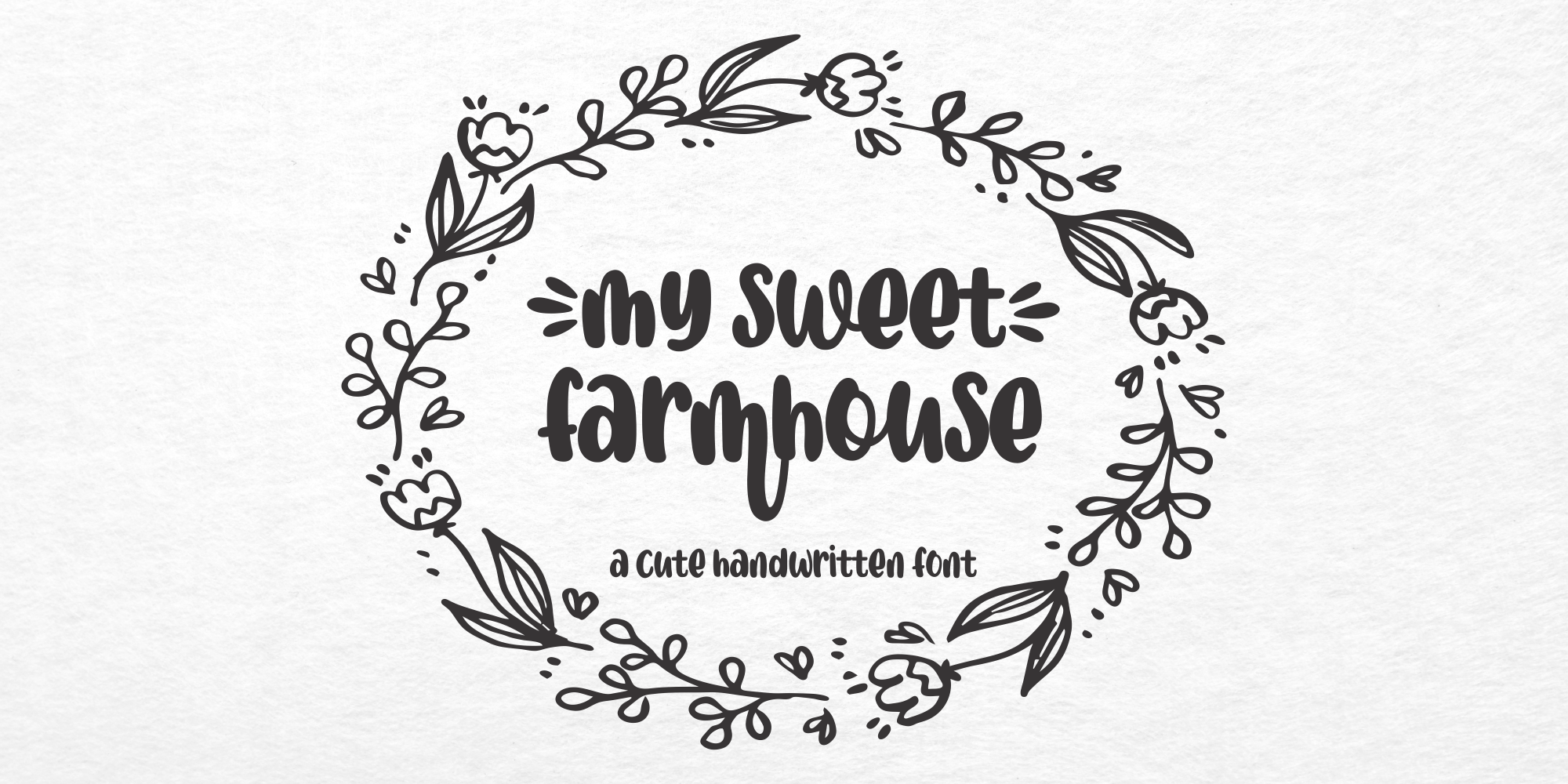
The My Sweet Farmhouse Font is perfect for rustic wedding invitations, farm-to-table restaurant branding, country kitchen decor, homemade product labels, rural bed and breakfast signage, farmhouse market materials, handcrafted goods packaging, agricultural business logos, and countryside tourism marketing.
What makes the My Sweet Farmhouse Font so exciting is its charming rustic authenticity that instantly evokes the warm comfort and wholesome values of traditional farmhouse living. This delightful typeface embodies the cozy simplicity and homemade quality that defines country lifestyle, creating an immediate sense of warmth and genuine hospitality. The font's farmhouse character communicates the authentic craftsmanship and down-to-earth values that rural businesses need to connect with customers seeking genuine country experiences and the comforting appeal of traditional farmhouse culture and homemade quality.
The My Sweet Farmhouse Font family includes Regular weight with complete uppercase and lowercase alphabets, comprehensive numerical sets, essential punctuation marks, and rustic decorative elements that maintain the farmhouse aesthetic throughout your country and rural lifestyle design projects.
Rural businesses and country-style service providers consistently choose My Sweet Farmhouse Font Free Download for projects that require authentic farmhouse appeal and wholesome country communication. This exceptional typeface excels in environments where establishing rustic charm and homemade authenticity is crucial for attracting customers who value traditional country values and genuine farmhouse experiences. The font's rustic character helps communicate the quality and authentic craftsmanship that country lifestyle enthusiasts expect from established rural businesses and traditional farmhouse service providers.
The distinctive qualities of My Sweet Farmhouse Font reflect the timeless traditions of farmhouse culture where family values, homemade quality, and rural hospitality create warm experiences and lasting memories. Each character demonstrates the handcrafted charm and cozy simplicity that characterizes successful country businesses and farmhouse hospitality venues. The font's proportions and spacing create perfect balance between rustic authenticity and comfortable readability that modern country businesses require for effective rural marketing and customer connection.
Contemporary farmhouse enterprises appreciate how My Sweet Farmhouse Font communicates country authenticity and homemade quality. Whether designing materials for rural restaurants, creating branding for farm-based businesses, or developing marketing for country tourism experiences, this font delivers the genuine character that distinguishes authentic farmhouse experiences from generic rustic imitations. The typeface works exceptionally well for businesses emphasizing traditional values, homemade craftsmanship, and the warm appeal of genuine farmhouse hospitality and country lifestyle.
The versatility of My Sweet Farmhouse Font extends across multiple rural applications and country marketing initiatives. Farmers' markets utilize its authentic character for vendor signage and local produce promotional materials. Country craft stores choose it to communicate their commitment to handmade quality and traditional craftsmanship techniques. Rural event venues rely on its charming appearance to attract couples seeking authentic farmhouse wedding experiences and country celebration settings.
Digital farmhouse platforms benefit from My Sweet Farmhouse Font's optimized performance across various country-themed applications and rural communication channels. The font maintains its farmhouse character whether displayed on rural websites, mobile farming apps, or digital country lifestyle publications. This technical reliability ensures consistent brand presentation across all farmhouse communication platforms and country lifestyle engagement scenarios.
The emotional impact of My Sweet Farmhouse Font resonates with audiences who appreciate traditional values and seek the comfort and authenticity of genuine country living experiences. The typeface serves as a visual embrace of farmhouse warmth and rural hospitality that helps country businesses build lasting relationships with customers who value homemade quality and authentic farmhouse traditions. This connection to country comfort and farmhouse authenticity makes it invaluable for establishing memorable rural brand identities.
Country marketing specialists and farmhouse design professionals recognize My Sweet Farmhouse Font as an essential tool for authentic rural branding. The font captures the essence of farmhouse charm while making country lifestyle accessible to contemporary rural businesses who want to communicate their commitment to traditional values, homemade quality, and the warm hospitality of genuine farmhouse culture in today's competitive country lifestyle marketplace.